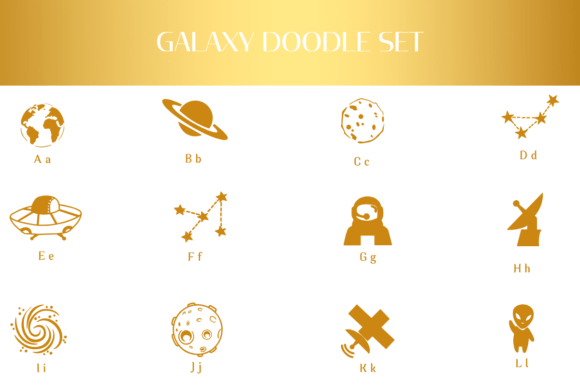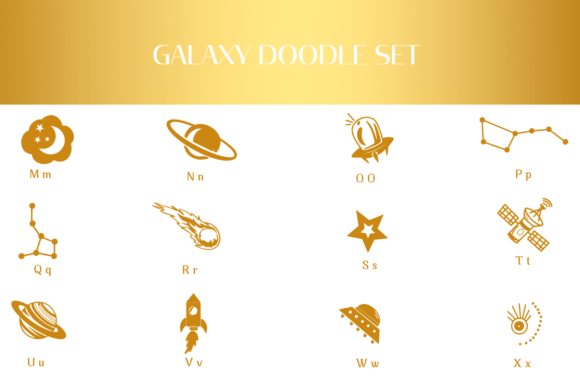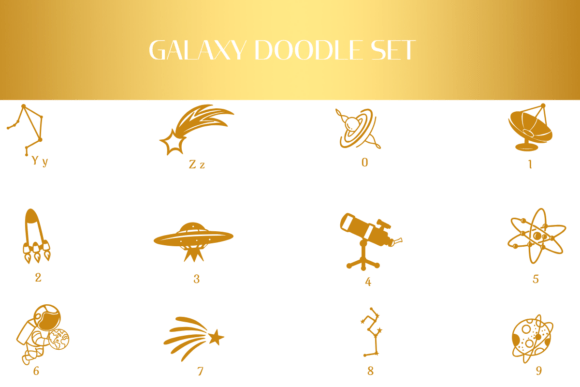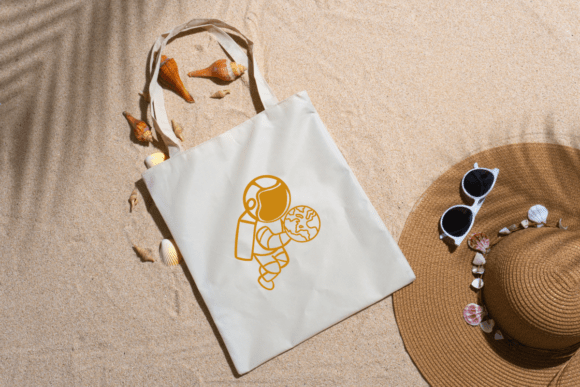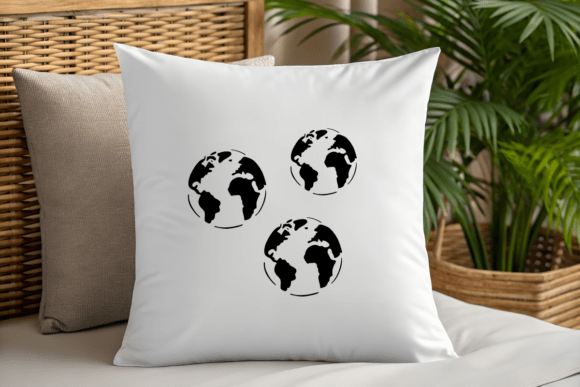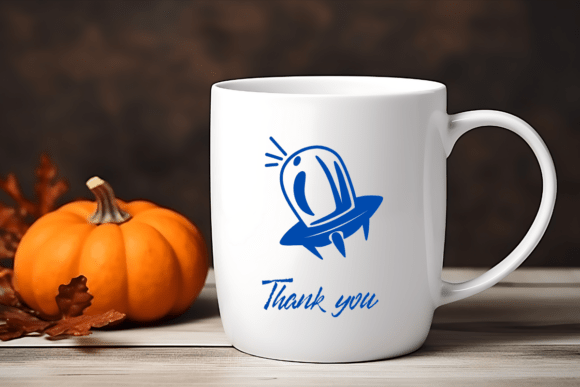
Unlocking the Cosmos: A Deep Dive into the Galaxy Doodle Set Font
Have you ever been in the middle of a design project, and suddenly, you need that perfect element to bring your vision to life? I recall working on a children’s educational worksheet about space, and I was struggling to find the right graphics to make it engaging. That’s when I stumbled upon the Galaxy Doodle Set Font, and it was a game-changer! 🚀
What is Galaxy Doodle Set Font?
Galaxy Doodle is a dingbat font that is out of this world—literally! It’s packed with a variety of space-themed illustrations, including rockets, astronauts, planets, satellites, constellations, and more. This font is perfect for a wide range of projects, such as science education materials, kids’ worksheets, cosmic party invitations, tech branding, and space-themed crafts.
Honest Review: The Good and the Great
Here’s what I love about Galaxy Doodle Set Font:
- ✨ Detailed Doodles: With just a keystroke, you get access to detailed doodles that are scalable and easy to customize.
- ✅ Variety of Elements: The font includes a wide range of space-themed illustrations, ensuring you have plenty of options for your designs.
- 🚀 Perfect for Educational Projects: The illustrations are not only fun but also educational, making them ideal for science projects and kids’ worksheets.
- 🎉 Great for Party Invites and Crafts: The whimsical designs are perfect for cosmic party invitations and space-themed crafts.
While Galaxy Doodle Set Font is amazing, there are a few minor quirks to be aware of:
- 🤔 Learning Curve: With so many glyphs and doodles available, it might take some time to get familiar with the font and learn how to navigate its features.
- ⚠️ OpenType Features: Some of the advanced features require OpenType support, which might not be available in all design software.
The Galaxy Doodle Set Font was created with the goal of making space-themed design elements accessible to everyone. The designer, inspired by a love of astronomy and a passion for education, wanted to create a font that would bring the cosmos to life in a fun and engaging way. Whether you’re a teacher looking for educational resources or a designer seeking unique elements, Galaxy Doodle was designed to inspire creativity and curiosity.
| Font Name | Galaxy Doodle Set Font |
| Author | Heartcraft Atelier |
Q: What kind of projects is Galaxy Doodle best suited for?
A: Galaxy Doodle is perfect for science education materials, kids’ worksheets, cosmic party invitations, tech branding, and space-themed crafts.
Q: Is Galaxy Doodle easy to use?
A: Yes, Galaxy Doodle is designed to be user-friendly. With a simple keystroke, you can access a variety of detailed doodles that are scalable and easy to customize.
Q: Does Galaxy Doodle support OpenType features?
A: Yes, Galaxy Doodle supports OpenType features, which allow for advanced typographic capabilities. This is particularly useful in design software like Adobe Photoshop and Illustrator.